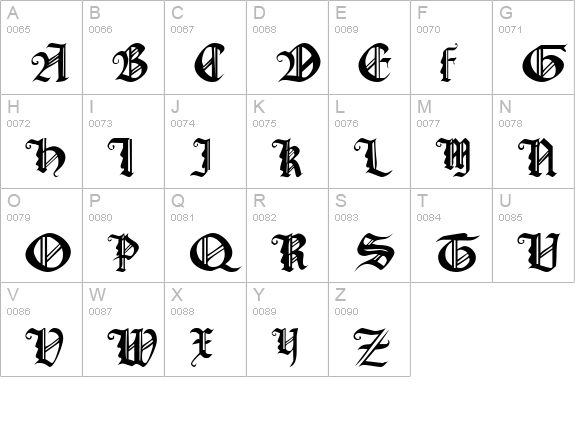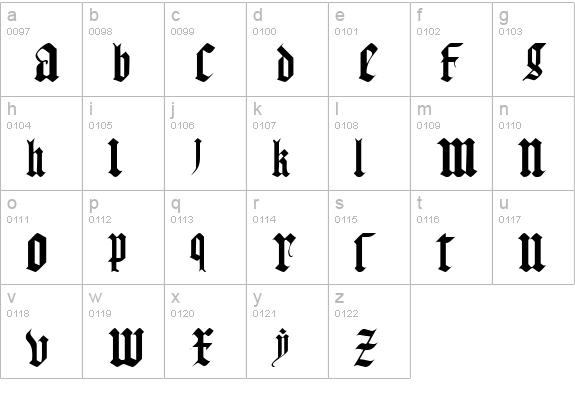
The Gothic Texture Quadrata font exudes an air of mystery and elegance with its intricate and ornate design. Reminiscent of ancient manuscripts and medieval architecture, this font is perfect for adding a touch of old-world charm to your projects. The sharp edges and detailed flourishes of the Gothic Texture Quadrata font make it a standout choice for titles, invitations, and other creative endeavors. Best of all, this exquisite font is available for free download at FontsMarket.com. Embrace the beauty and sophistication of the Gothic Texture Quadrata font in your designs today.